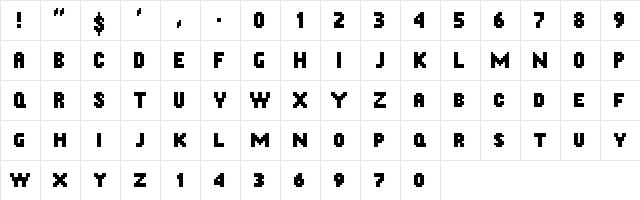
Everette Regular
Design Context for Everette Typeface
Everette is a composed and adaptable typeface that performs quietly and consistently across a wide range of design contexts.
Pro Tip: Pair Everette with a font of contrasting weight or personality to build a more expressive typographic hierarchy.